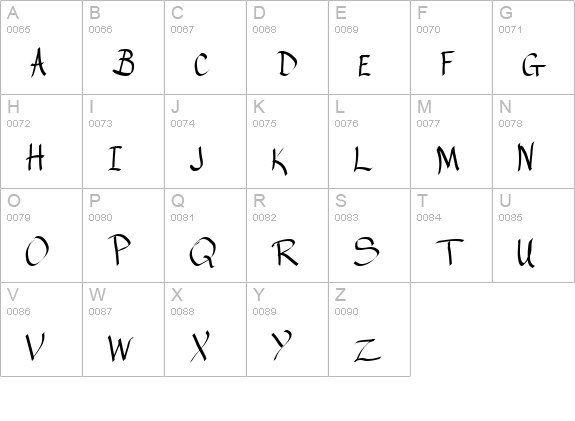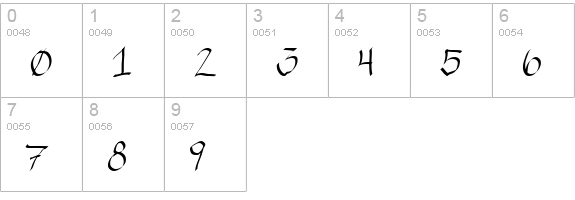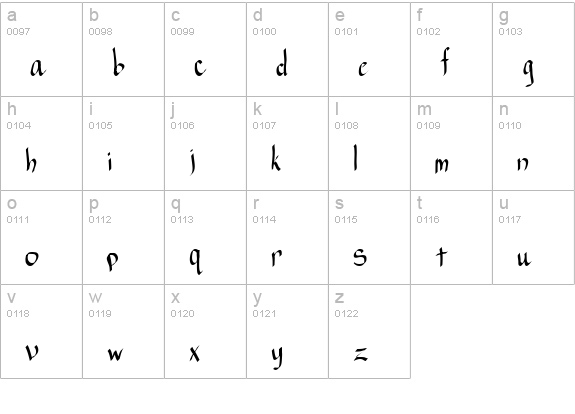
RAHand 1 Font Details
Introducing RAHand 1, a beautifully crafted font that exudes elegance and sophistication. With its unique and intricate design, this font is perfect for adding a touch of timeless charm to any project. RAHand 1 is a versatile font that can be used for various purposes, including logos, branding, advertisements, invitations, and more. Its clean lines and balanced proportions make it legible and pleasing to the eye, ensuring that your message is conveyed with clarity and style. But what sets RAHand 1 apart is not just its stunning aesthetics; it's also the fact that it is freely available to download at FontsMarket.com. Yes, you read that right! This incredible font can be yours without spending a dime. Whether you're a professional designer or an aspiring artist, RAHand 1 offers you the opportunity to create stunning visuals without breaking the bank. So why wait? Head over to FontsMarket.com and get your hands on RAHand 1 today. Embrace the beauty of this font and let your creativity soar. Whether you're designing a logo for a prestigious brand or crafting an eye-catching invitation, RAHand 1 will undoubtedly leave a lasting impression. Don't miss out on this incredible opportunity to elevate your designs with a font that seamlessly blends elegance and accessibility. Download RAHand 1 now and unlock a world of possibilities.